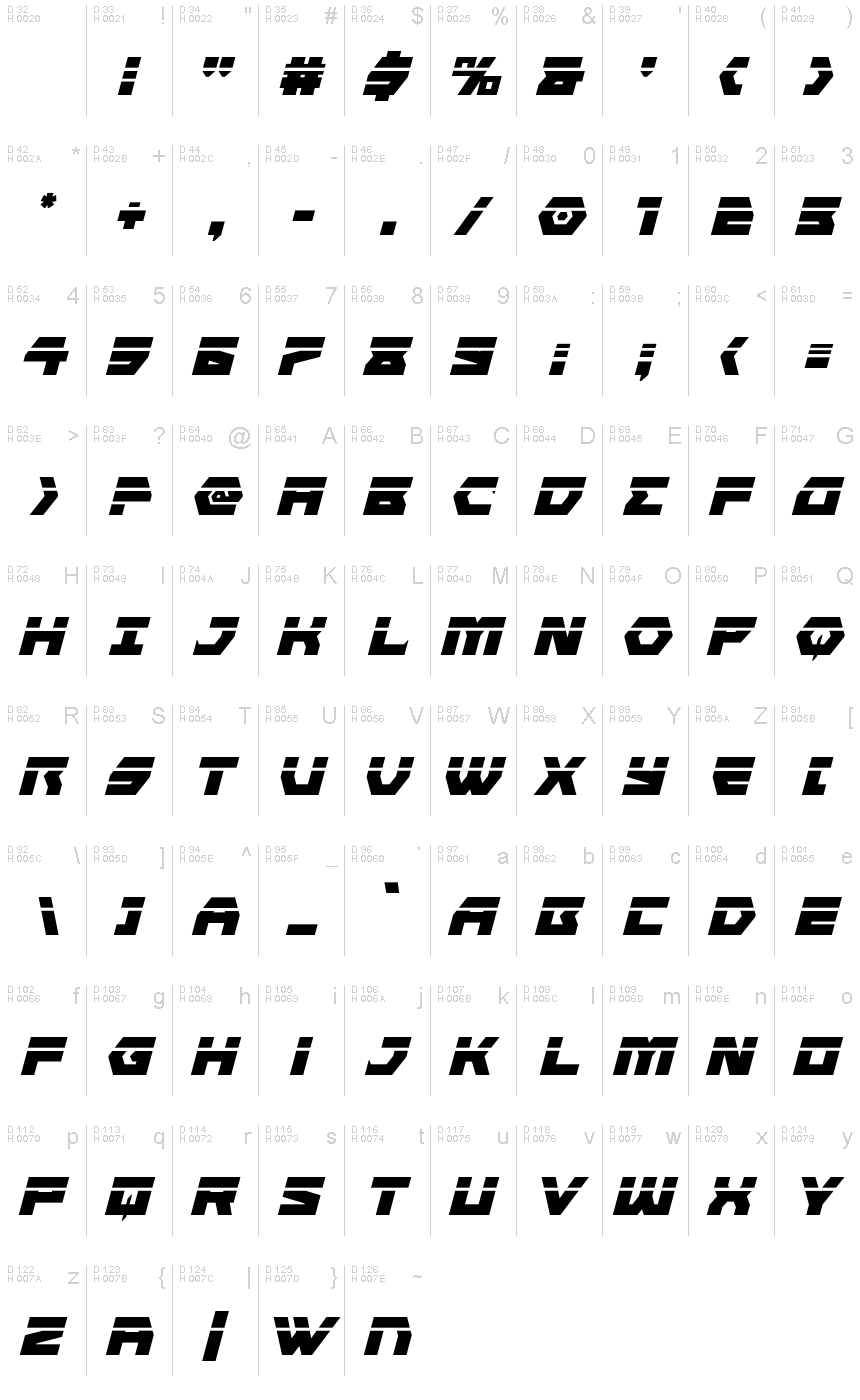
Cyberform Laser Italic
Cyberform Laser Italic, designed by Iconian Fonts, is a bold, display typeface that exudes a futuristic and cutting-edge aesthetic. Its expanded width amplifies its presence, making it perfect for high-impact designs. The striking visual appeal of Cyberform Laser Italic is ideal for projects that demand attention and convey a sense of modernity and innovation.
Whether used in tech-centric branding, avant-garde posters, or dynamic digital interfaces, this font brings a unique flair to any design context. Its bold strokes and expanded form ensure readability while maintaining an ultramodern look. For designers seeking to infuse their work with a forward-thinking vibe, Cyberform Laser Italic stands out as the quintessential choice.